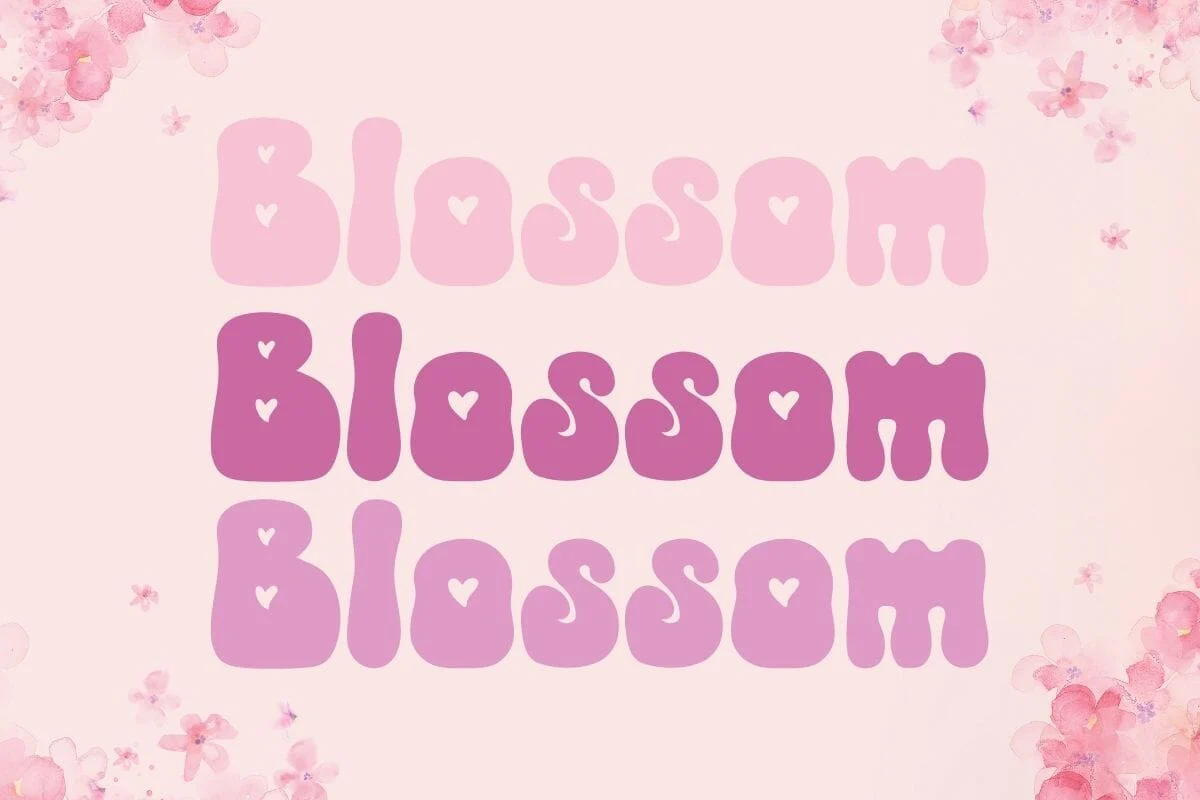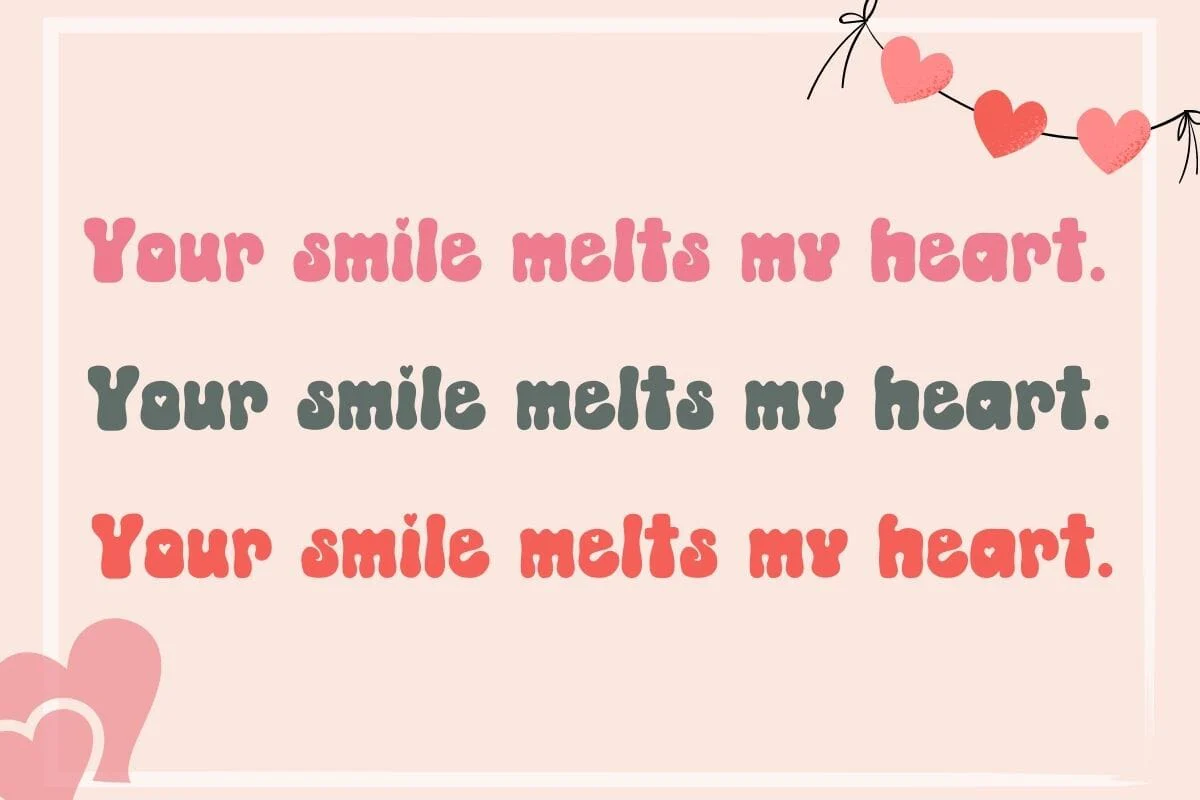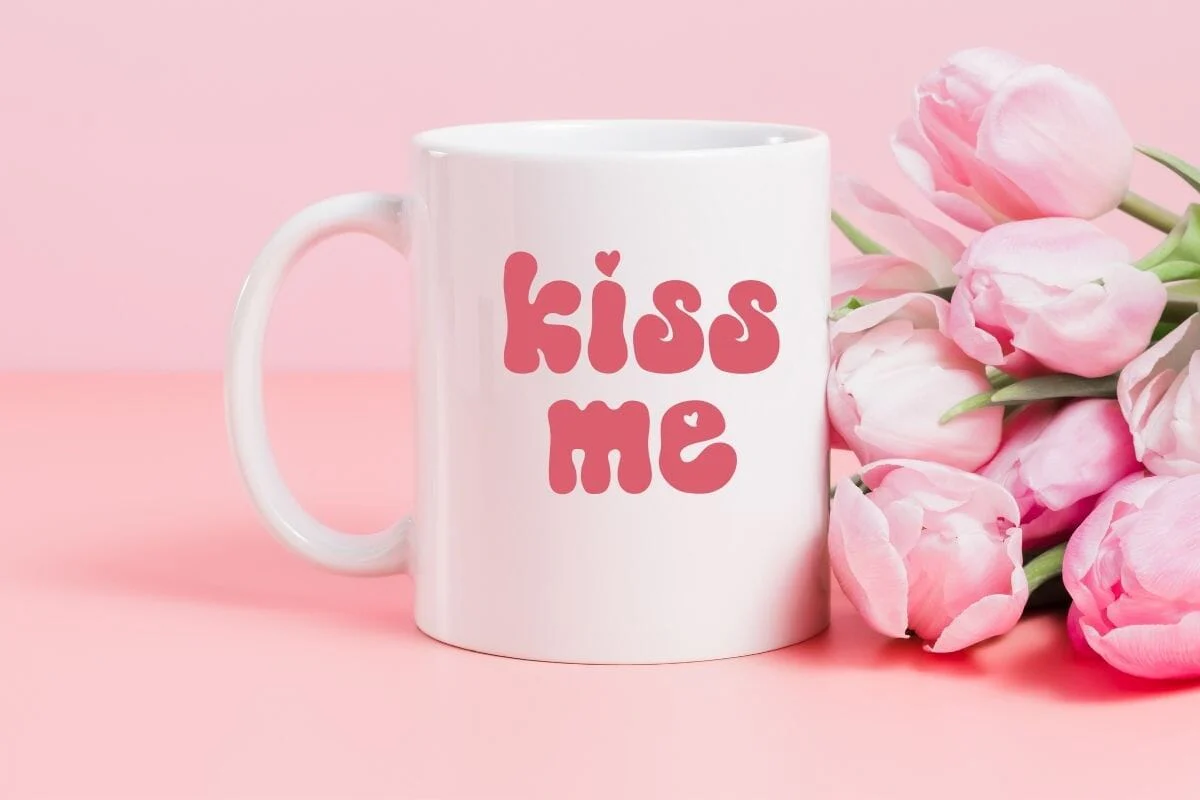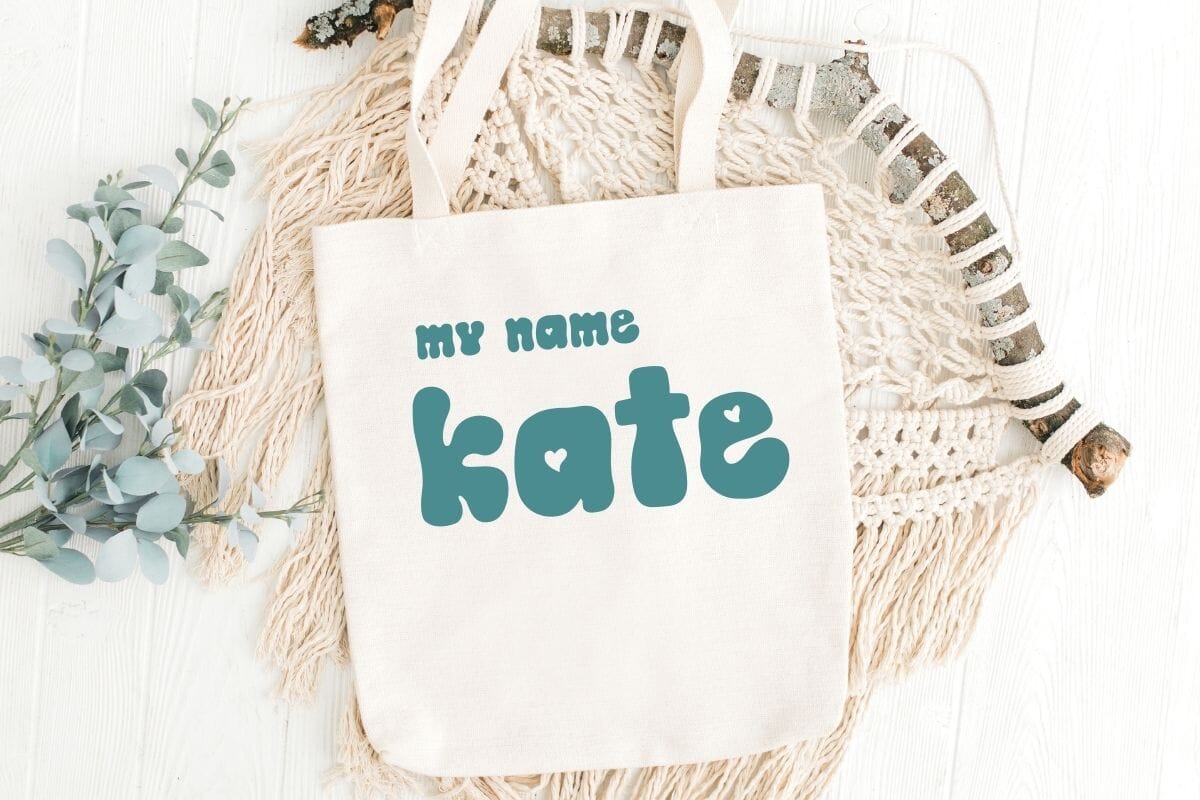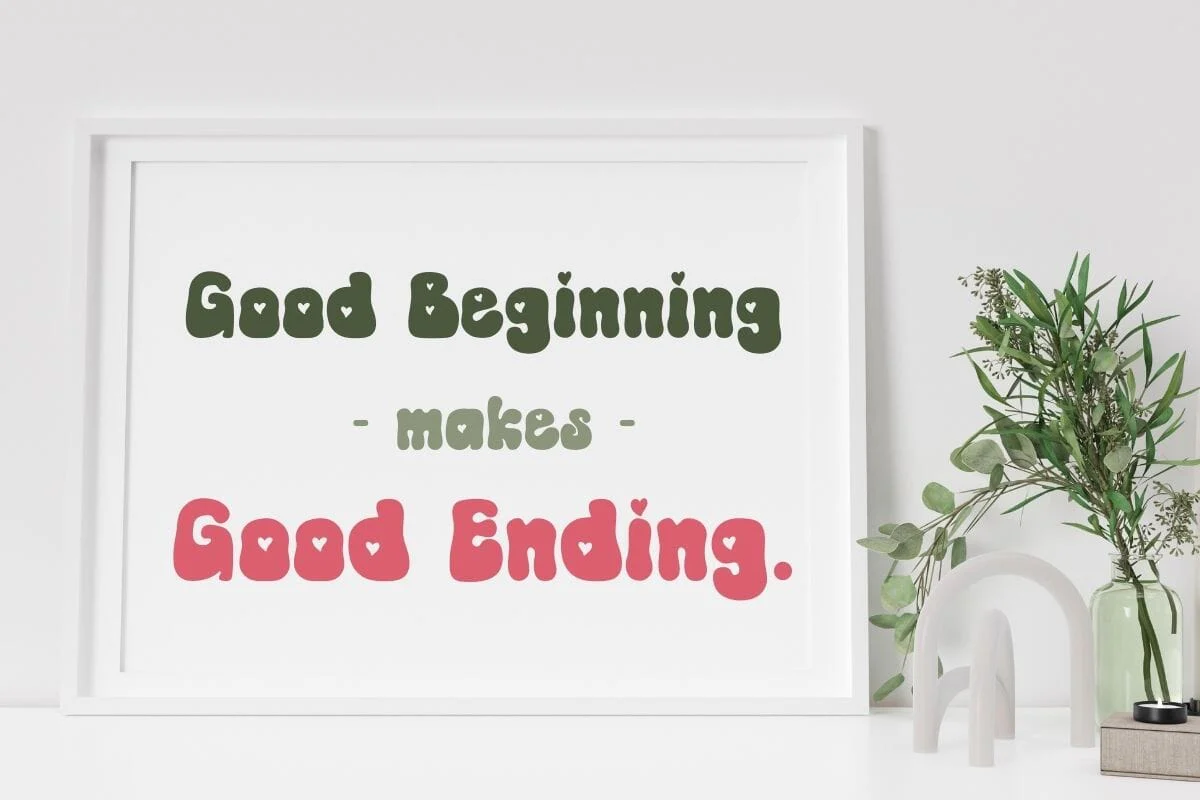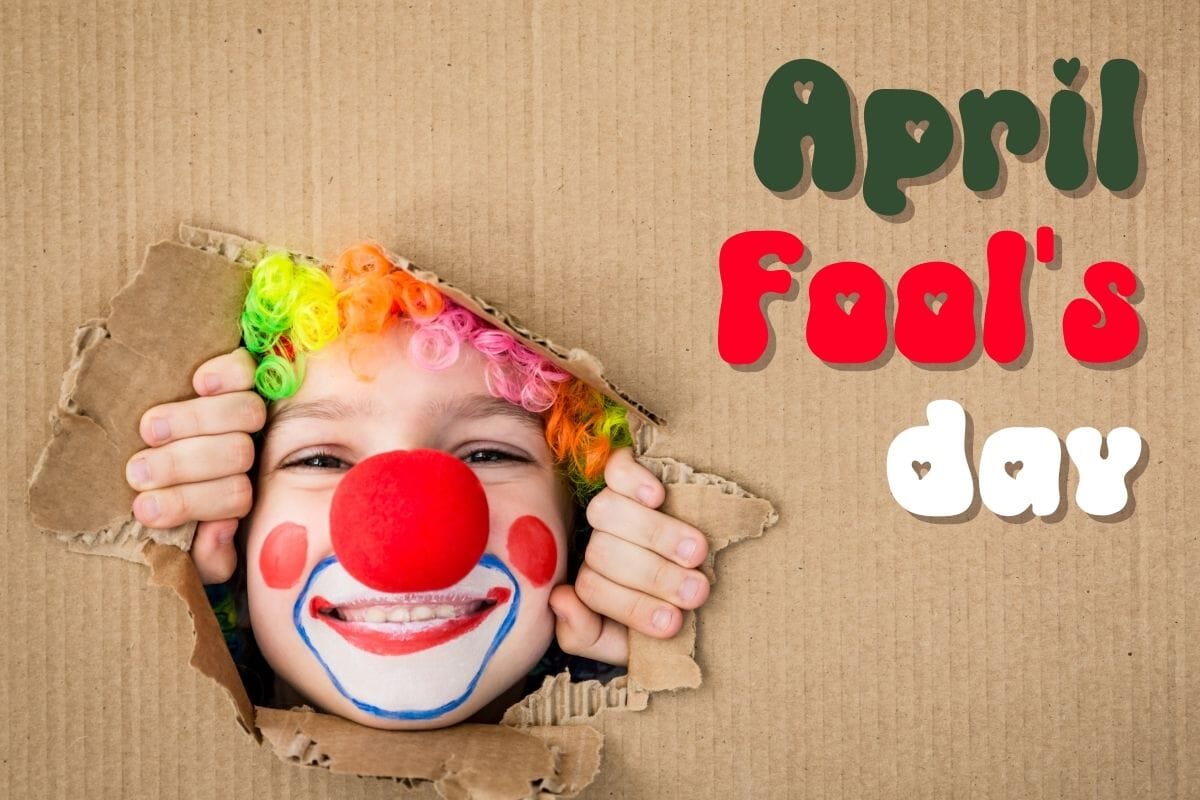
Sweetie – Cute Groovy Font | Retro Font for Kids, Crafts & Sublimation
Sweetie is a cute groovy display font inspired by retro 70s typography with soft rounded shapes and tiny heart details.
This playful and cheerful font adds a sweet, lovable touch to any design.
Perfect for:
- Valentine’s Day projects
- Kids apparel & baby designs
- Retro quote graphics
- T-shirts, mugs & tote bags
- Stickers & sublimation designs
- Cricut & Silhouette crafts
- Nursery wall art & classroom decor
With its bold curves and charming heart accents, Sweetie is ideal for creators who love cute, retro, and feel-good typography.